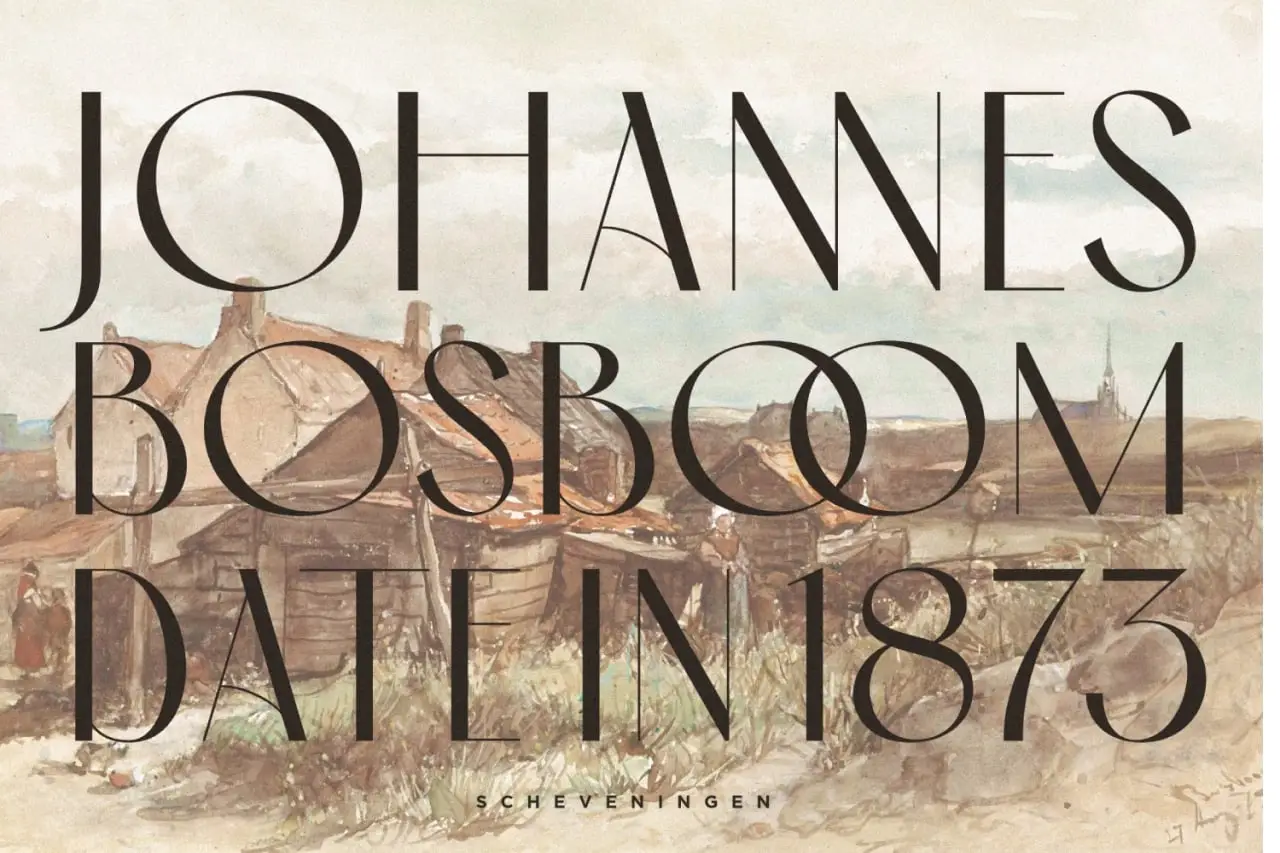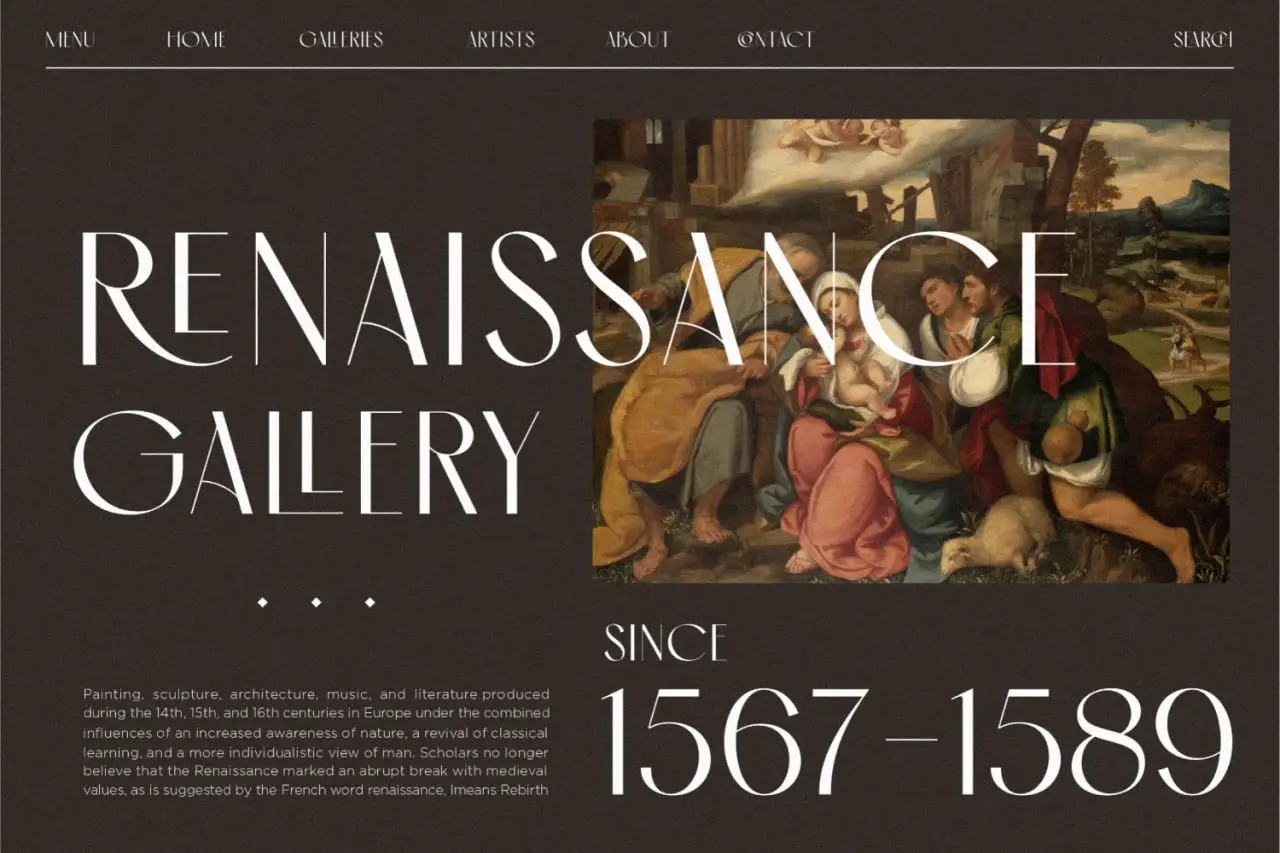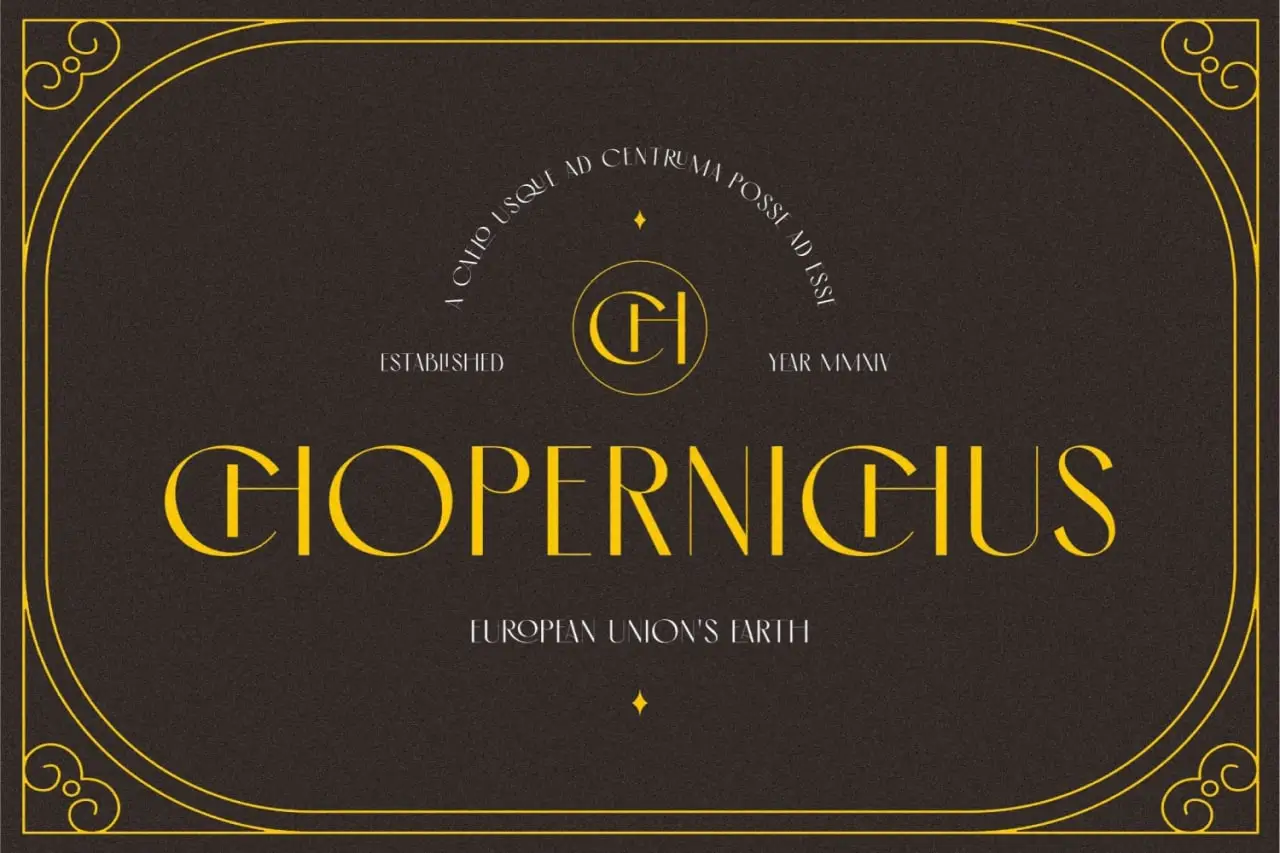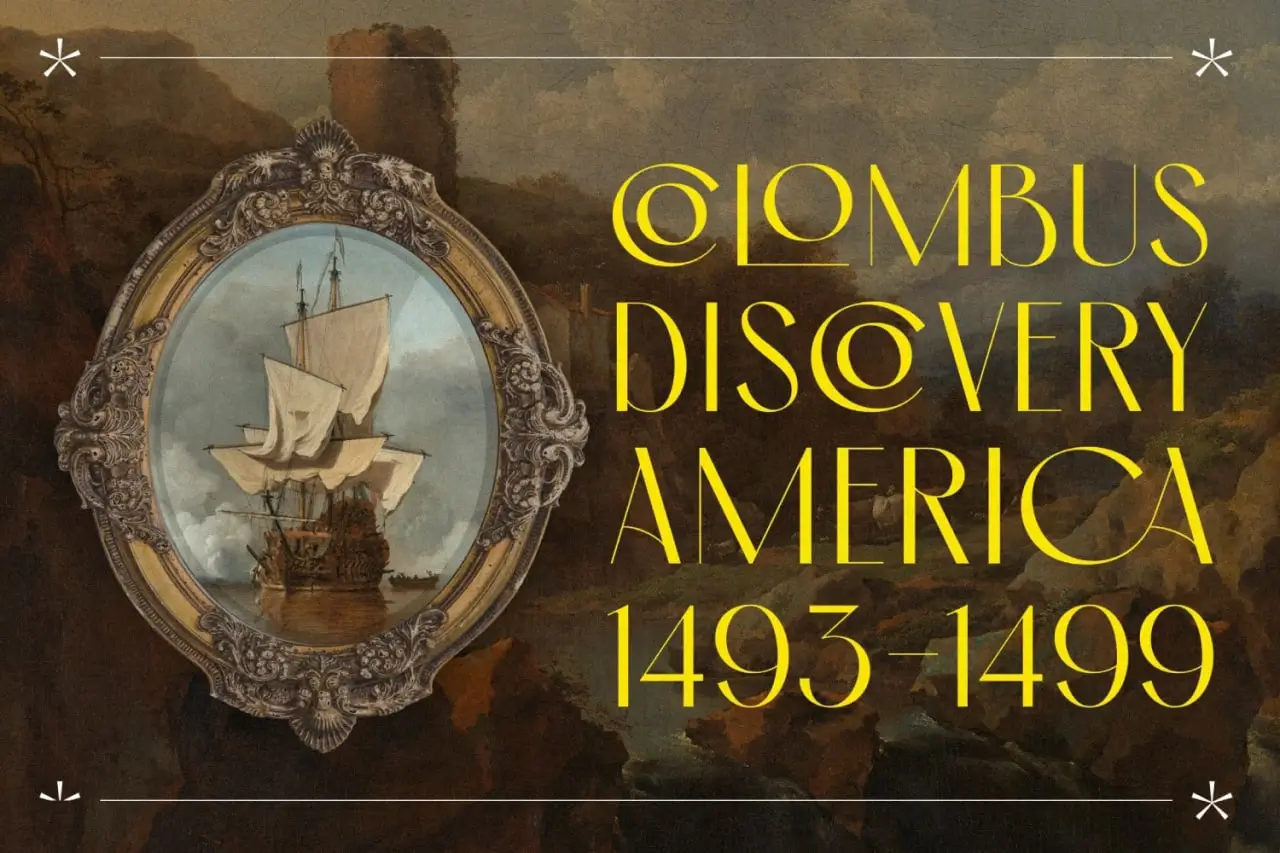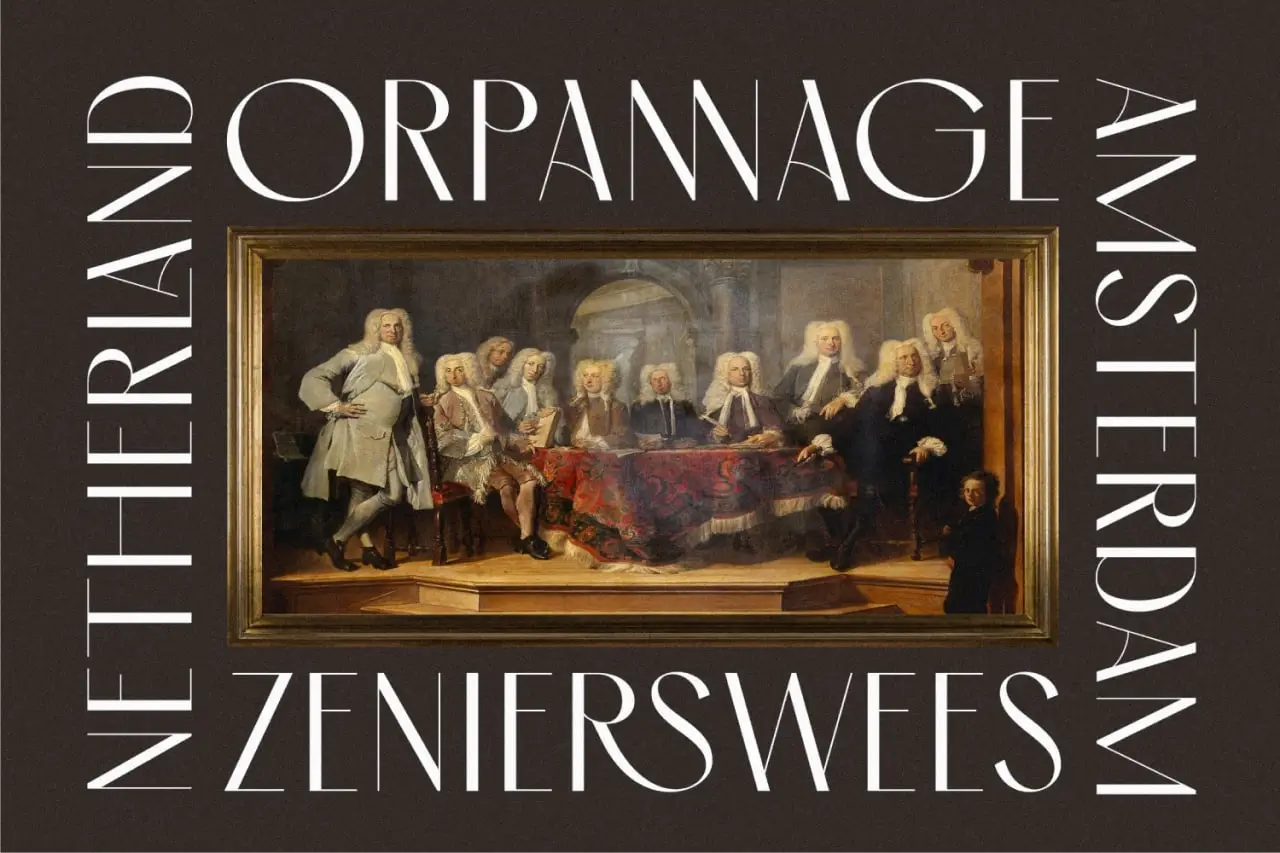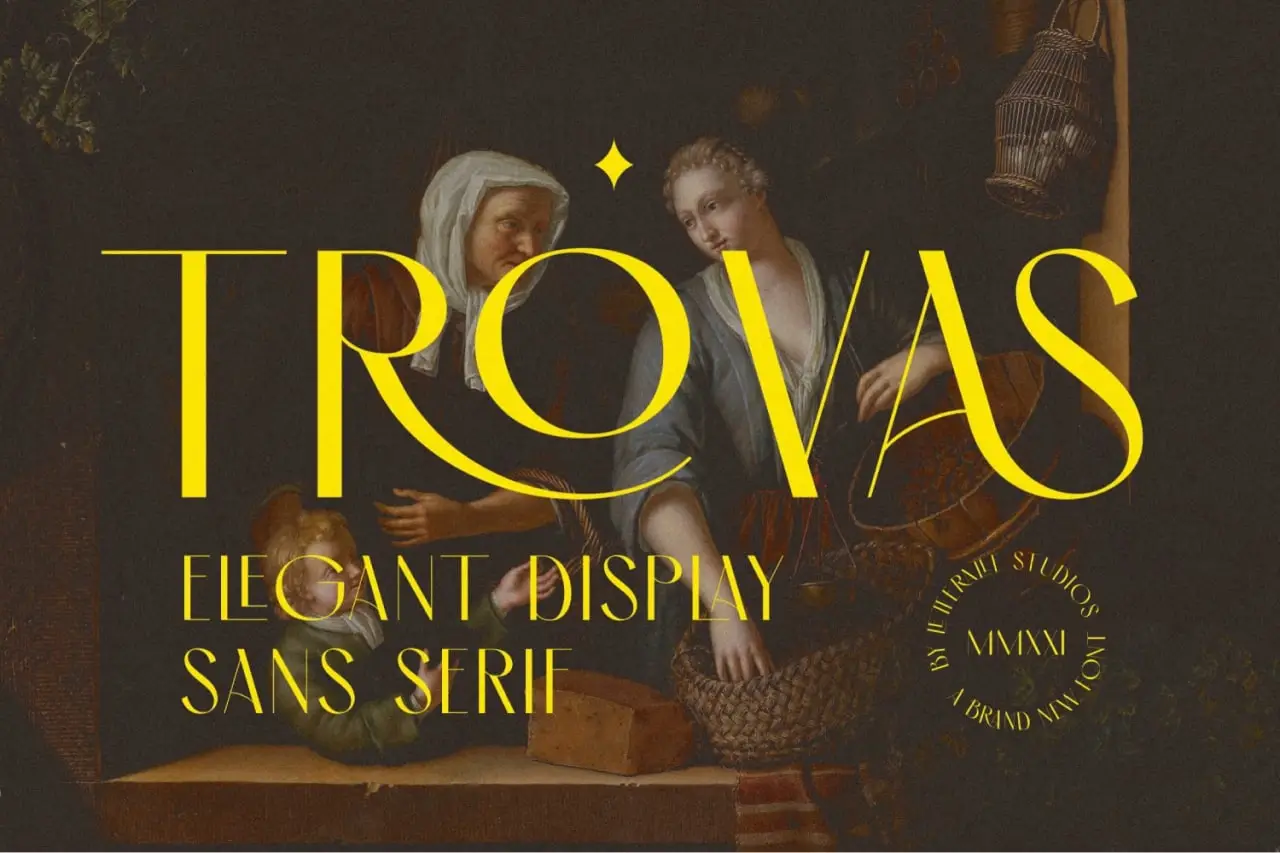
The Trovas Font is a versatile typeface designed to elevate your creative projects. With its clean lines and modern aesthetic, this font is perfect for a variety of applications, including branding, logos, web design, print materials, and user interfaces.
- Multiple weights for flexibility in design
- Stylish uppercase and lowercase letters
- Numerous special characters and symbols
- Clear legibility at various sizes
- Ideal for creating eye-catching logos and branding materials
- Use in web design for a modern and professional look
- Perfect for print projects such as flyers, business cards, and posters